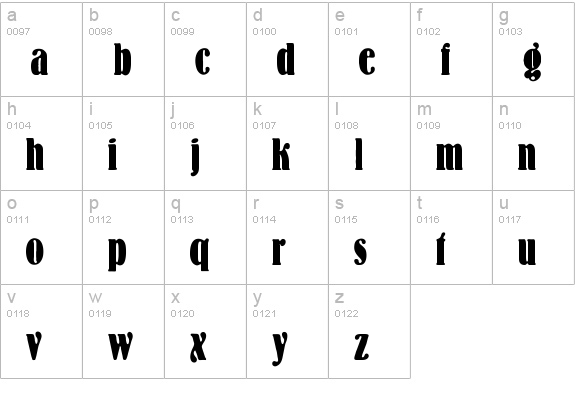
LeonhardBoldCondensed Font Details
Introducing LeonhardBoldCondensed font, a strikingly bold and condensed typeface that exudes power and elegance. This font is perfect for making a statement in any design project, from eye-catching headlines to impactful logos. With its clean and modern design, LeonhardBoldCondensed commands attention and leaves a lasting impression. Its bold letterforms are meticulously crafted to ensure legibility and readability, even at smaller sizes. The condensed nature of this font adds a touch of sophistication and allows for efficient use of space, making it ideal for creating impactful designs in limited areas. But what sets LeonhardBoldCondensed apart is not just its impeccable design but also its availability as a free download at FontsMarket.com. Yes, you read that right - this stunning font can be yours, free of charge. Now you can add a touch of boldness and elegance to your designs without breaking the bank. Whether you're a graphic designer, a branding specialist, or simply someone who appreciates the beauty of typography, LeonhardBoldCondensed is a must-have in your font collection. Its versatility allows it to effortlessly elevate any project, be it print or digital, ensuring that your message stands out from the crowd. So why wait? Unlock the power of LeonhardBoldCondensed today and take your designs to new heights. Visit FontsMarket.com and freely download this exceptional font that combines boldness, elegance, and affordability in one package.